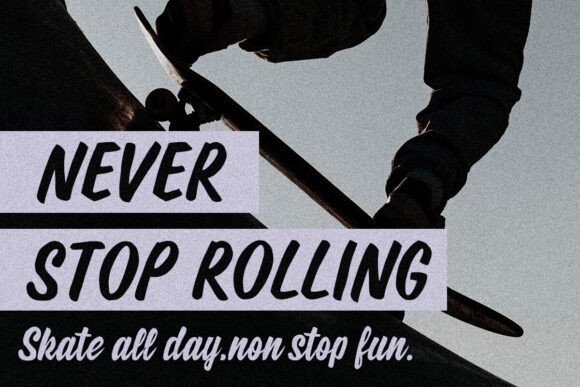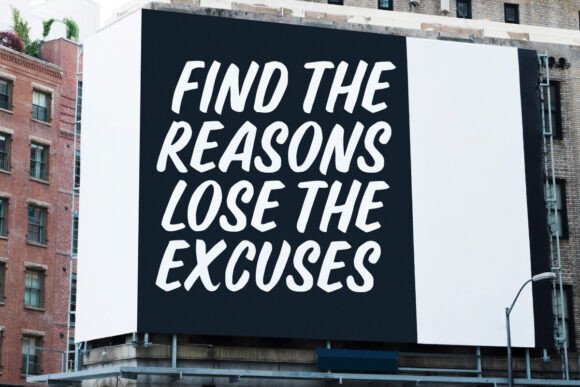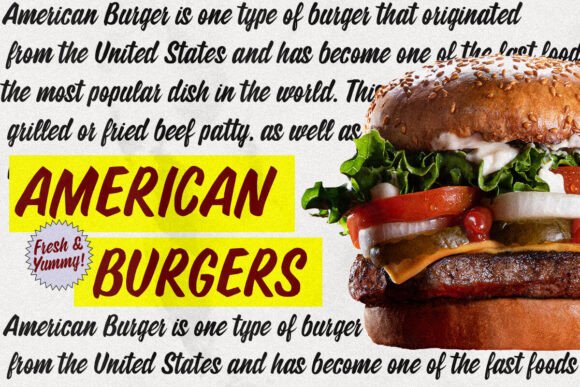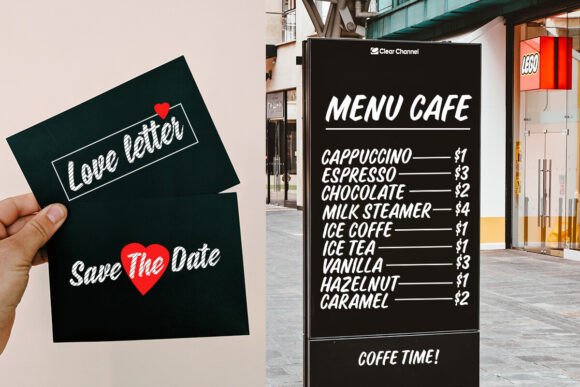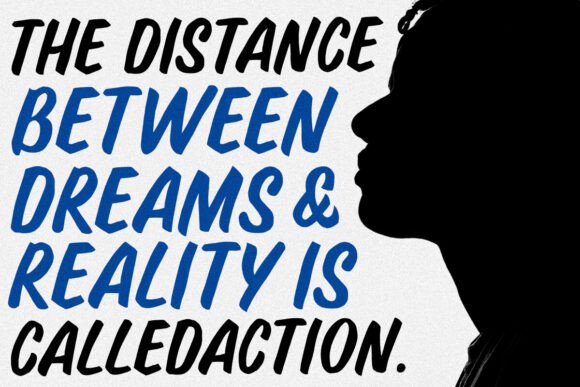
Introduction to Safonamix Wonders Font Font
Fonts play a crucial role in design, and the Safonamix Wonders Font font is a typeface that brings both character and versatility to any project. Whether you’re working on a branding project, a website, or a print design, the Safonamix Wonders Font font offers a unique style that can elevate your work.
| 👤 Author | Youngtype |
Safonamix Wonders & Safonamix Wonders Script is a hand brush font made with brushes and ink.
This typeface is ideal for use in thick watercolor designs or handwriting styles, such as blog titles, posters, wedding elements, t-shirts, clothing, book covers, business cards, greeting cards, branding, merchandise etc .
Key Features of Safonamix Wonders Font Font
Why Choose Safonamix Wonders Font Font?
The Safonamix Wonders Font font is more than just a typeface – it’s a design tool that helps you communicate your message with style and clarity. Its unique character set and versatile design make it suitable for a wide range of applications, from elegant invitations to bold headlines.
With its carefully crafted letterforms and balanced proportions, the Safonamix Wonders Font font ensures readability and visual appeal across all mediums.
What makes Safonamix Wonders Font font special?
The Safonamix Wonders Font font stands out with its unique design, exceptional readability, and versatility across various design applications.